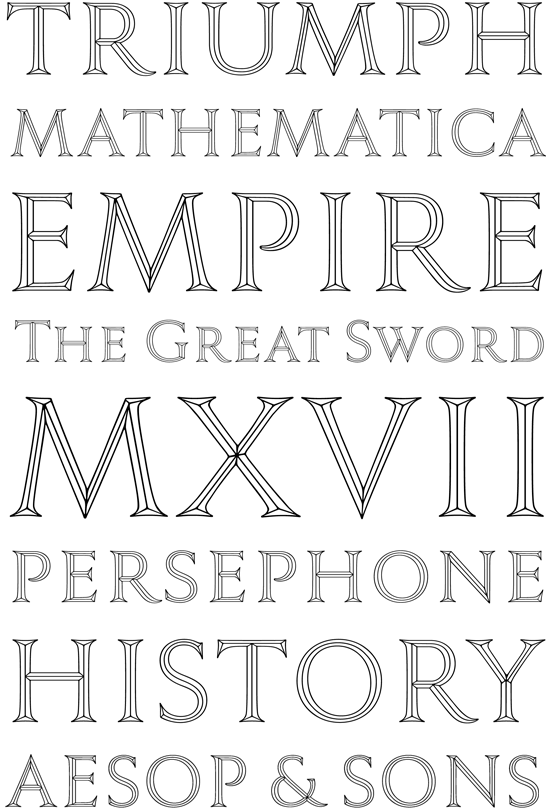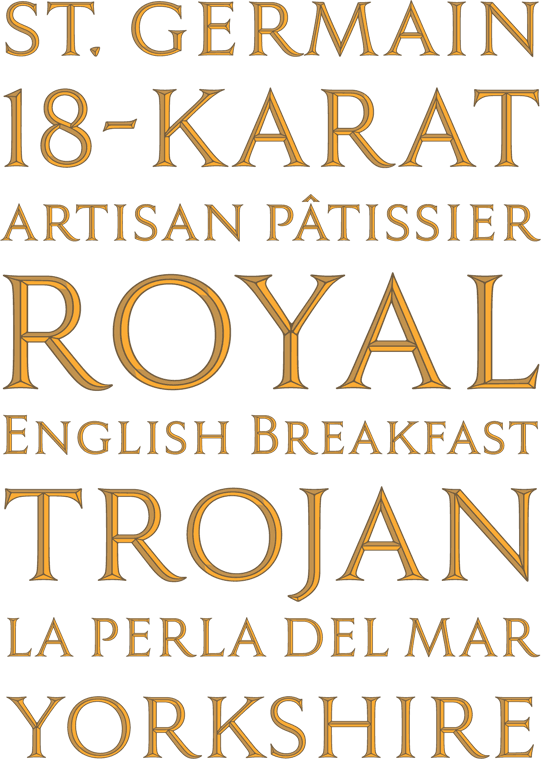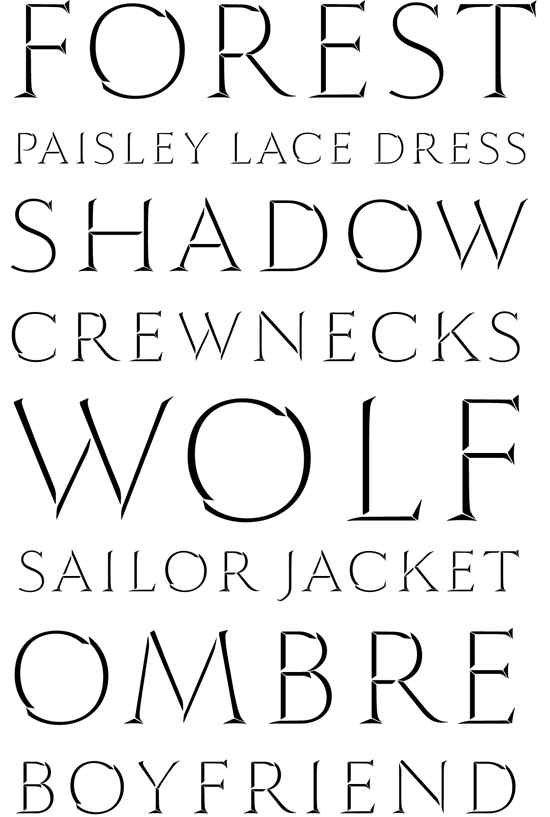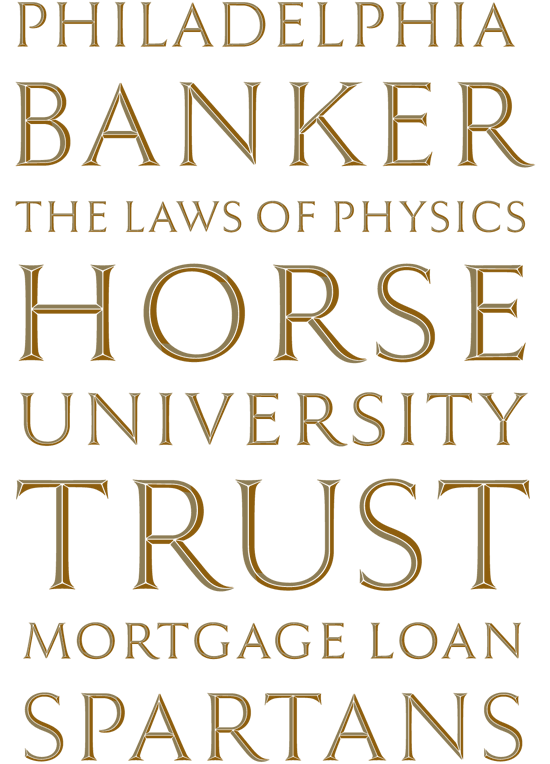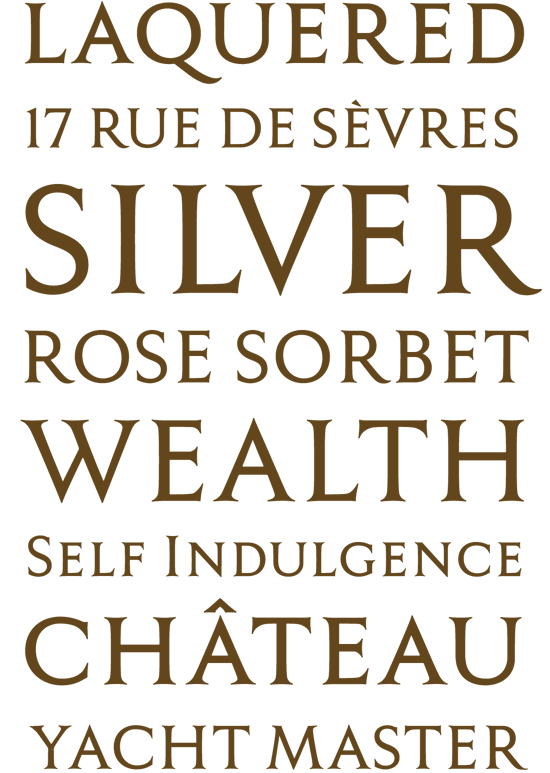
Photo-Lettering presents Trillium from L.H. Copeland and Jeremy Mickel. Perfect for epic entertainment entities and branding grandeur, Trillium’s chiseled physique evokes sybaritic splendor in three precision-incised Cesarean sections.